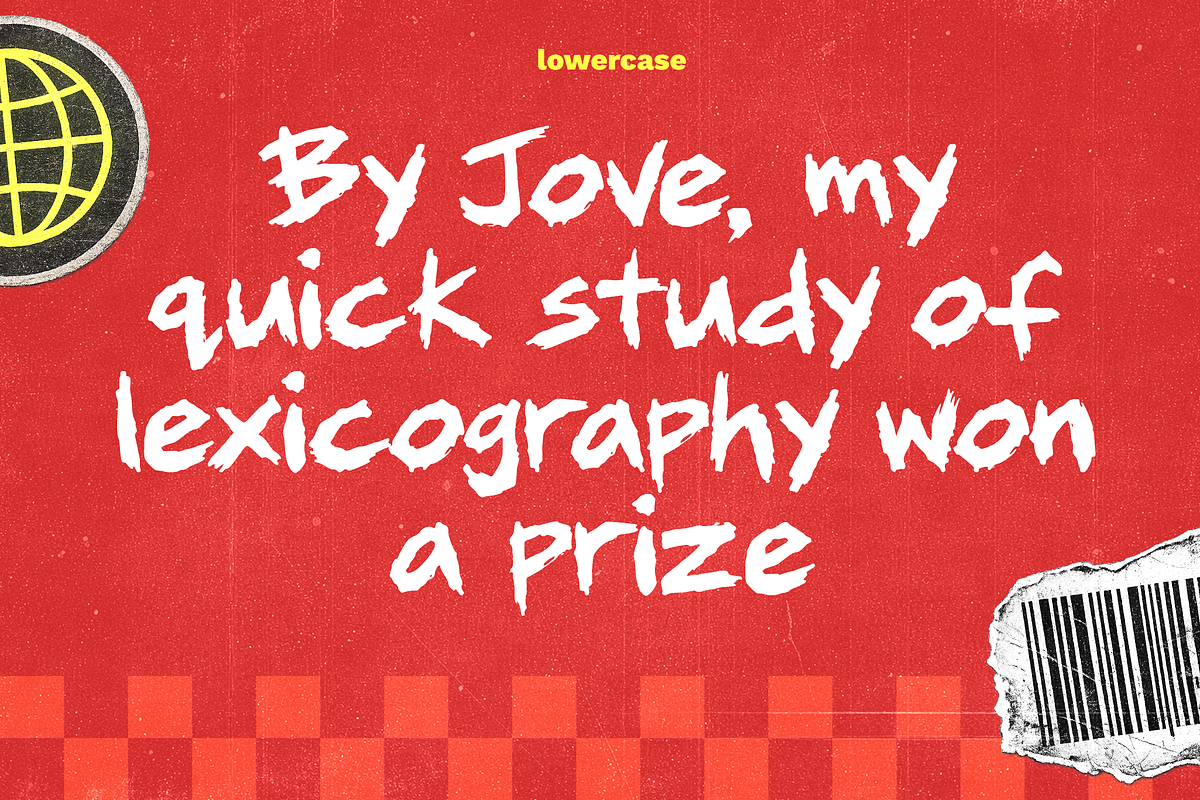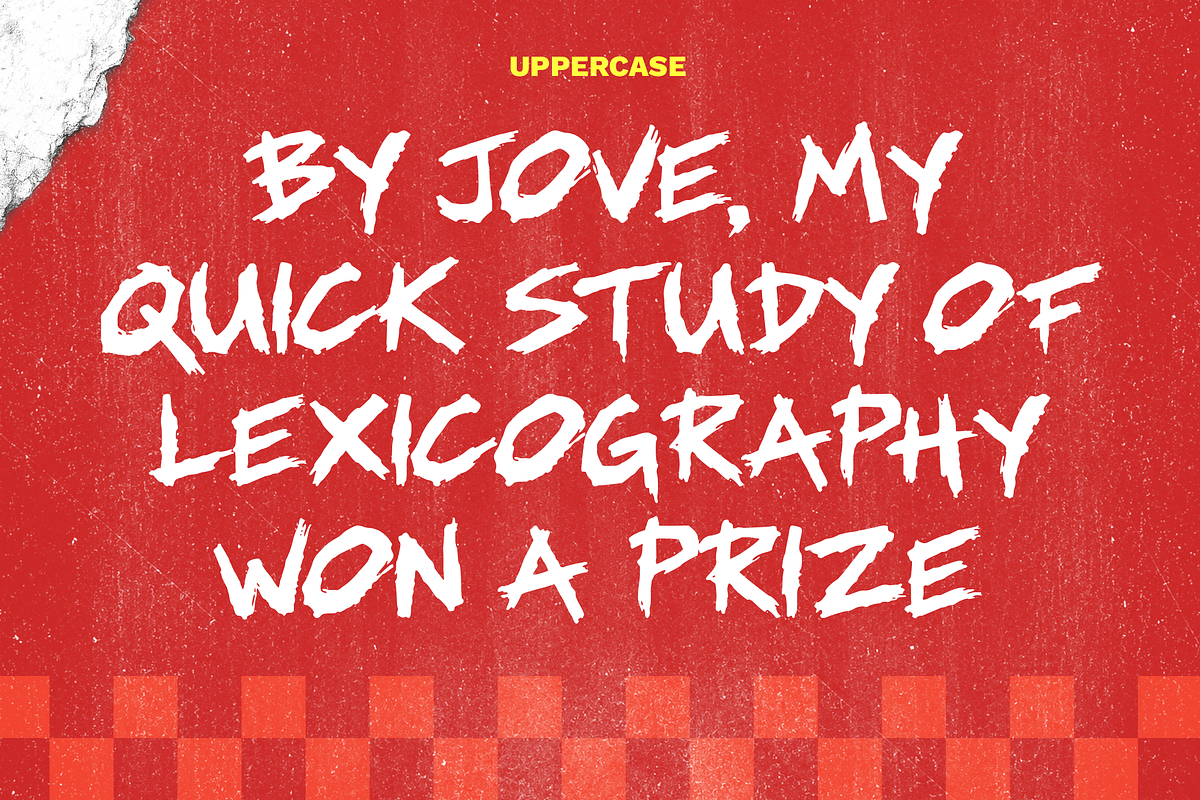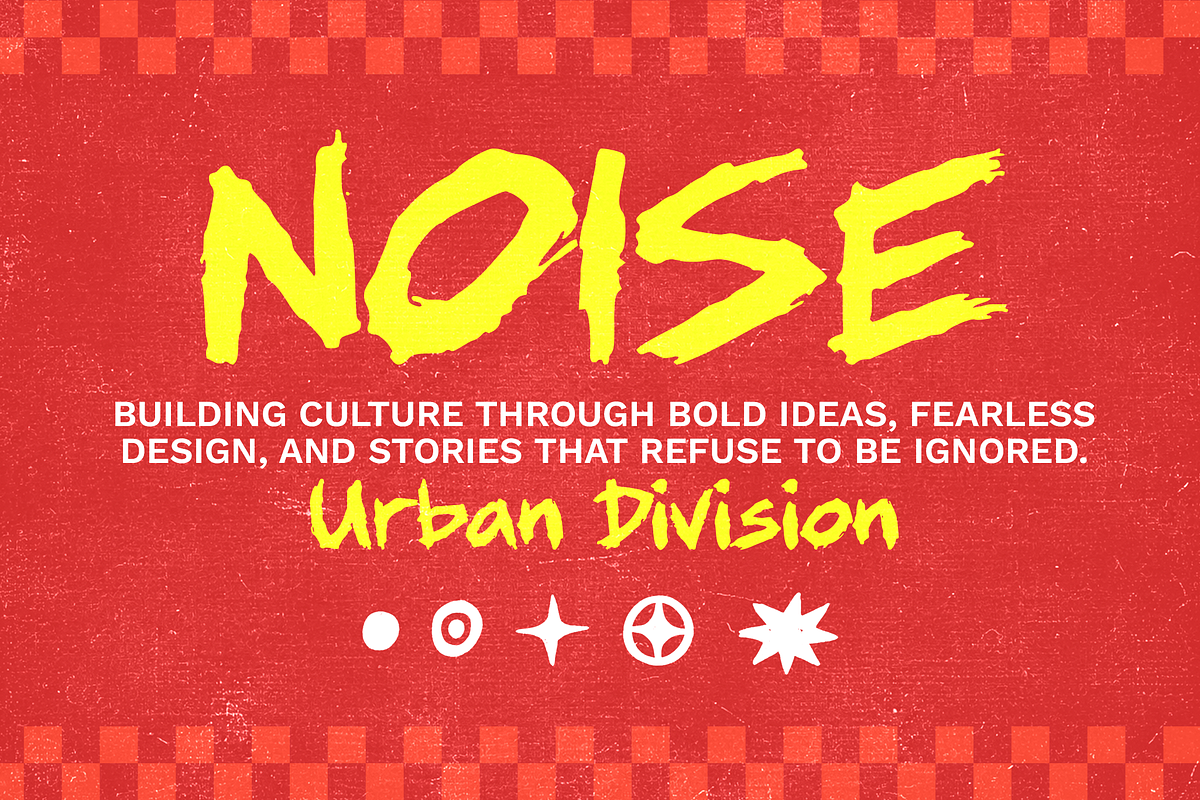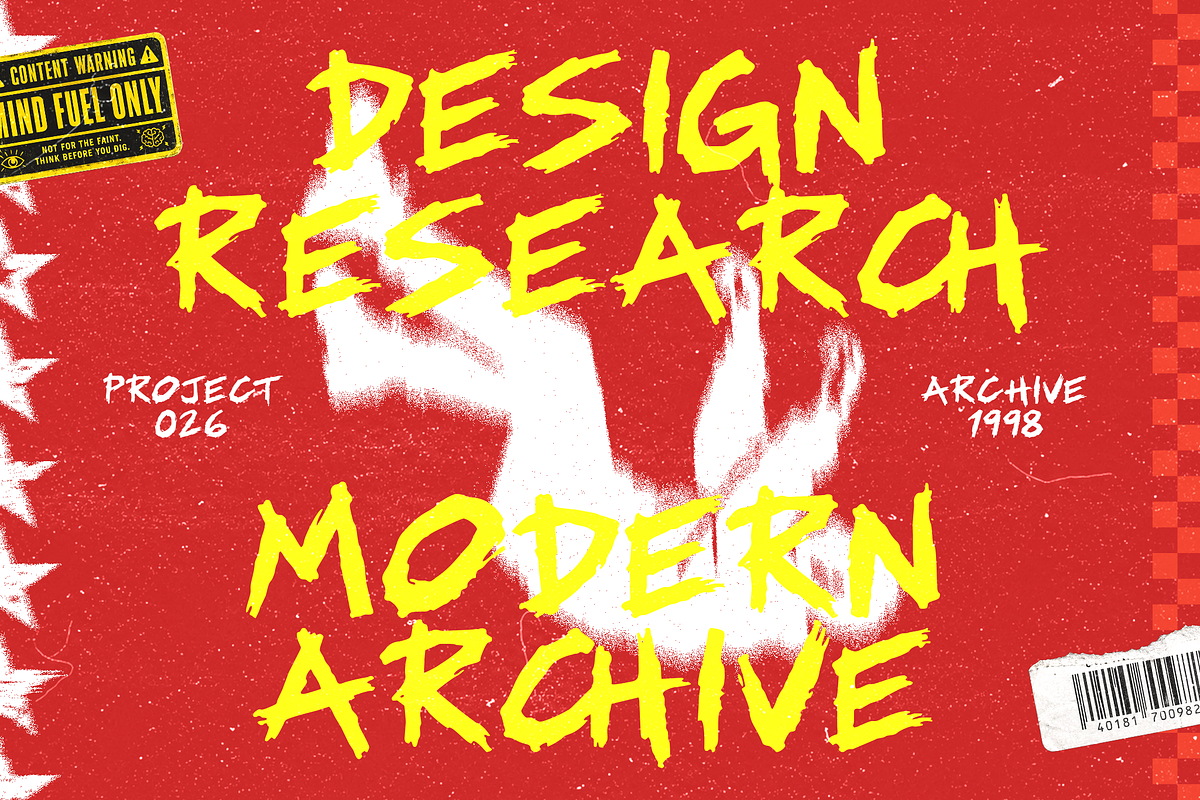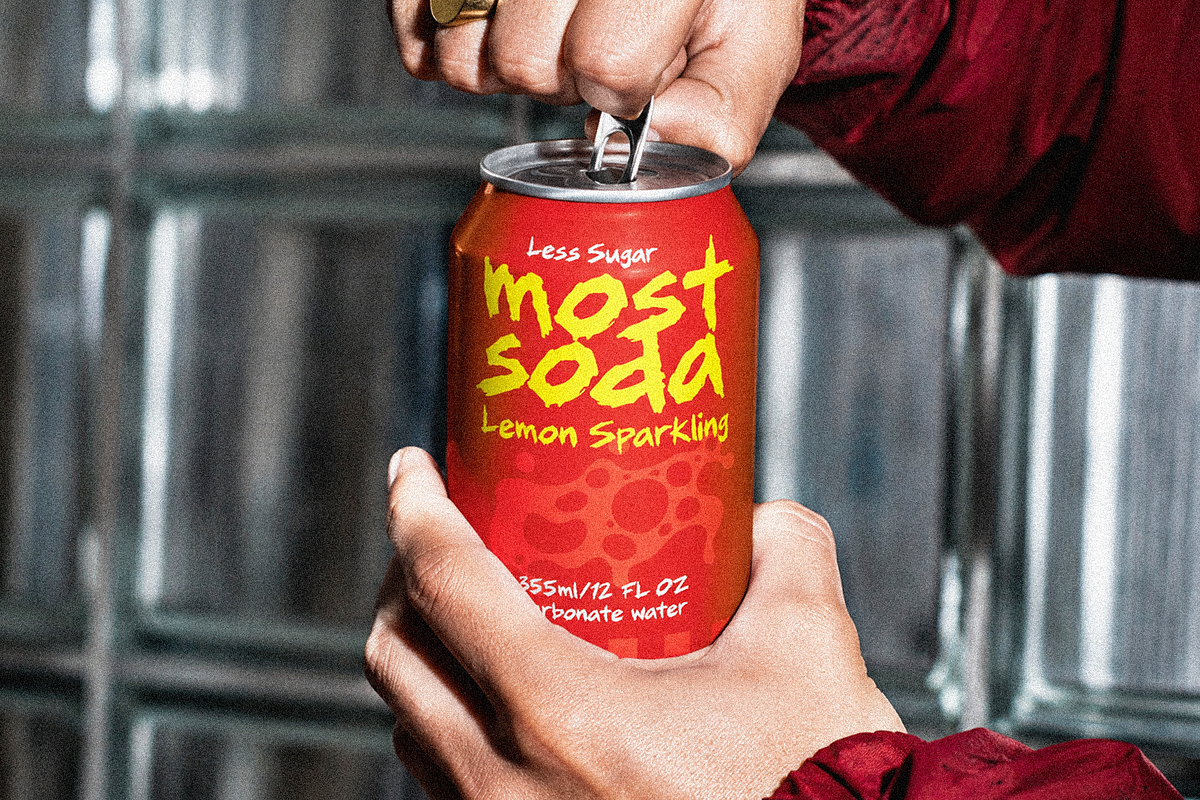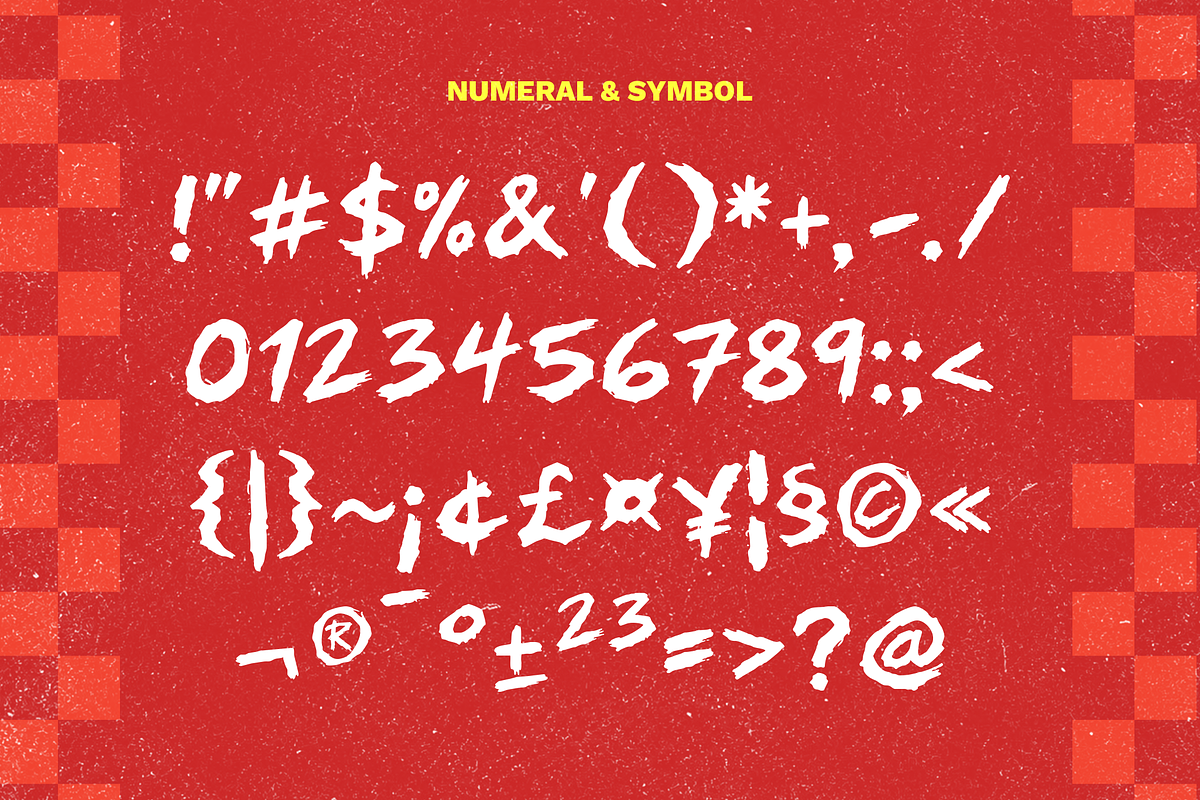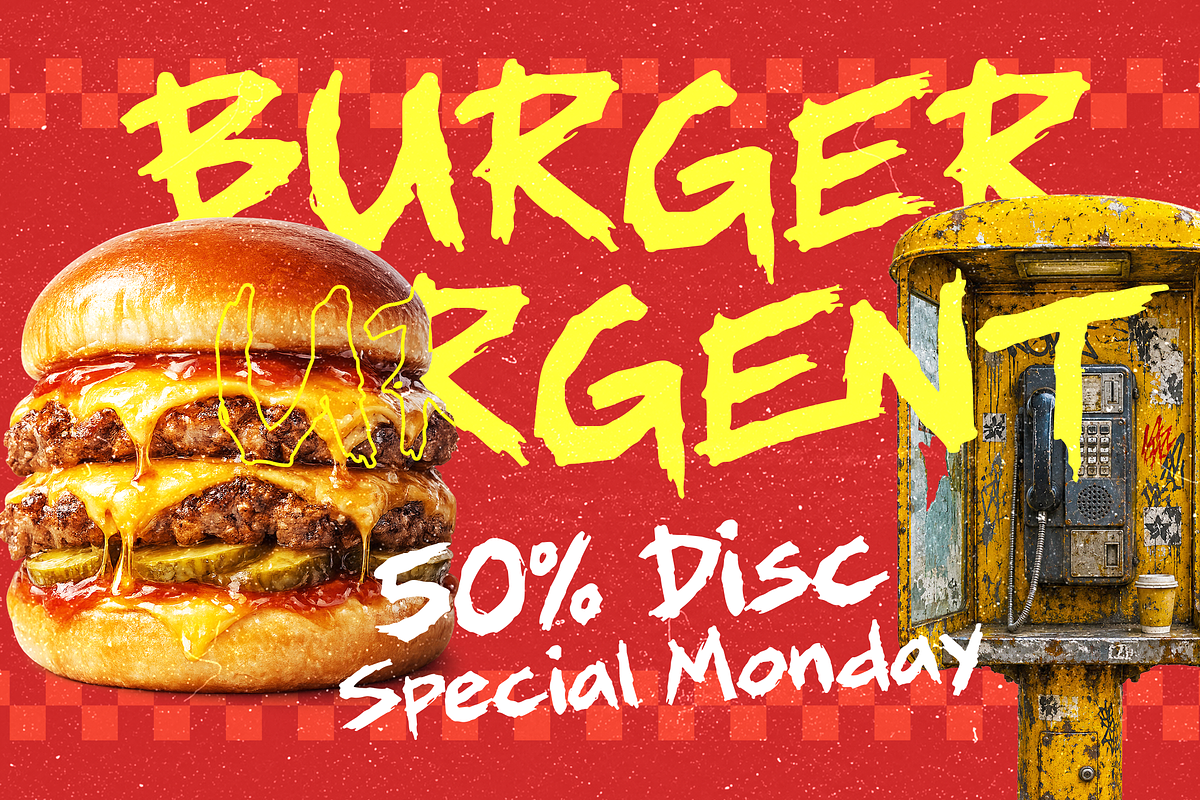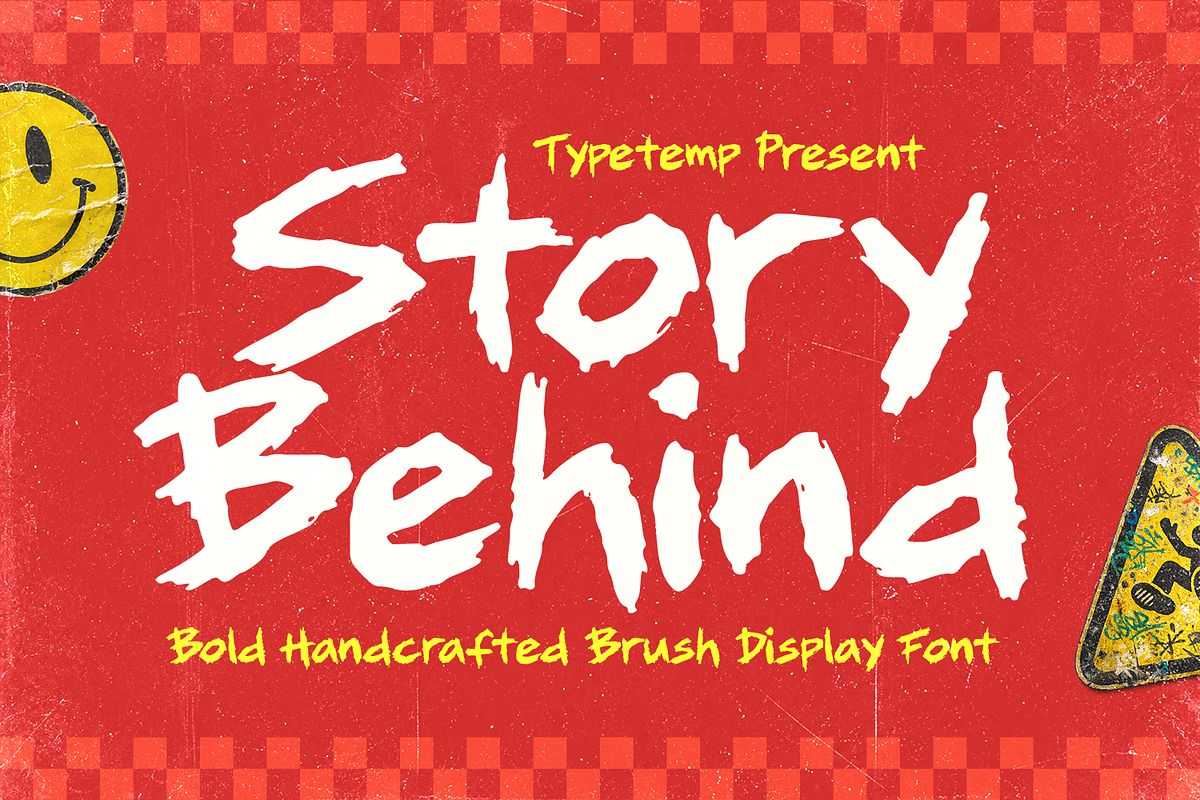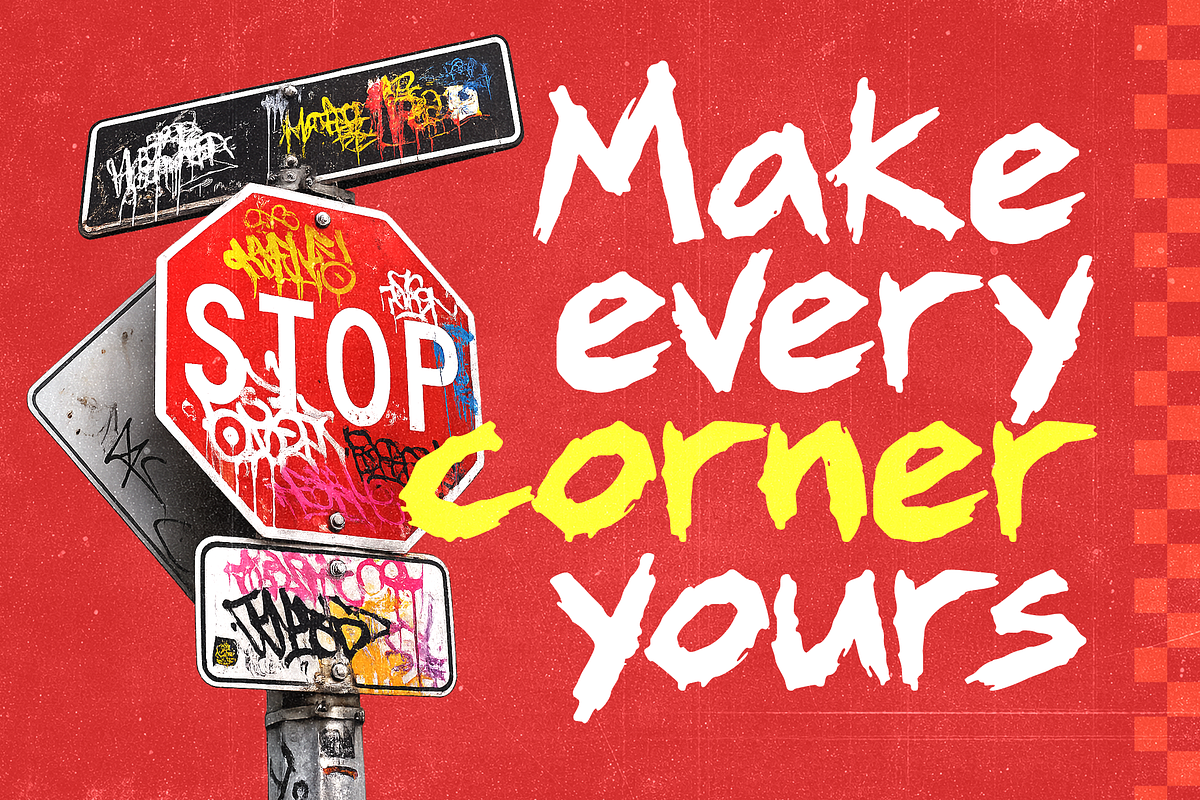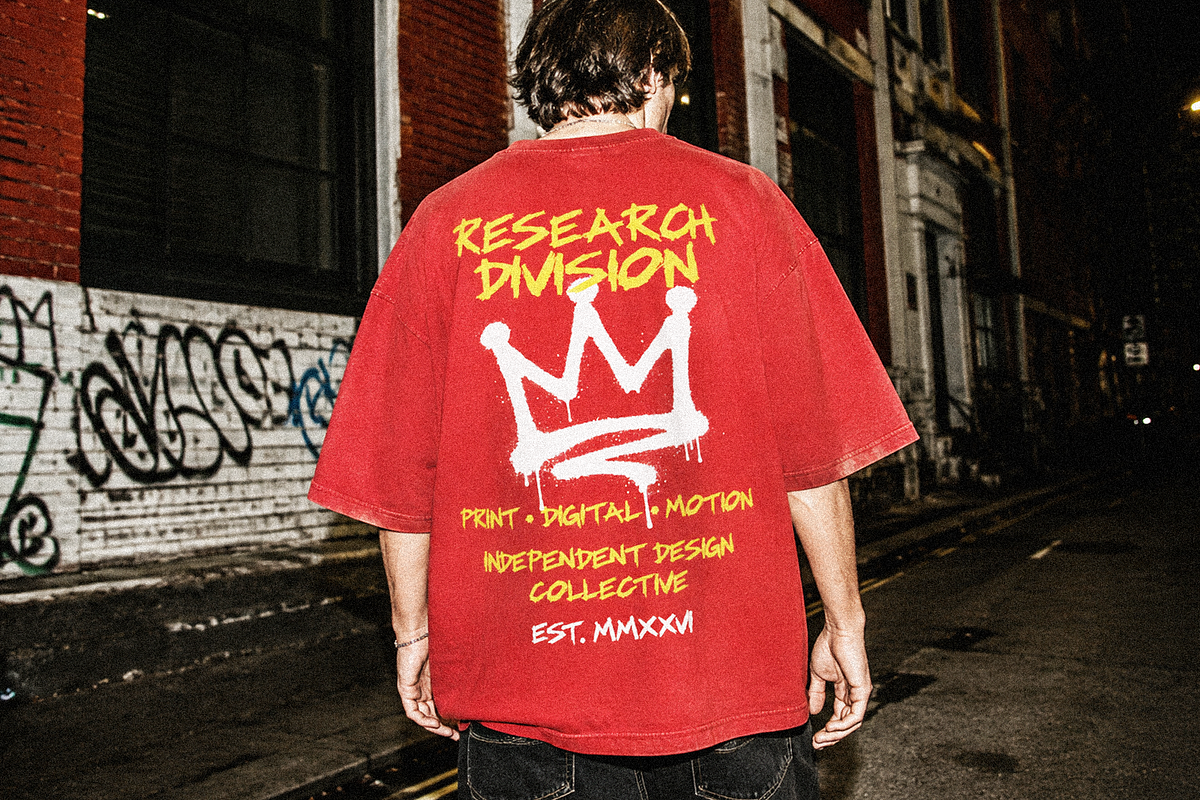
Story Behind Bold Handcrafted Brush
Story Behind is a high-energy, bold handcrafted brush display font presented by Typetemp. Featuring raw, textured brush strokes and aggressive hand-painted edges, this font captures a vibrant street-culture, Y2K, and grunge-pop aesthetic. Its bold visual presence and expressive letterforms make it a standout choice for dynamic headlines and high-impact design layouts.
Authentic handcrafted brush texture with energetic, dry-brush stroke details.
Bold display letterforms designed for high-impact headlines.
Edgy street culture and Y2K-inspired visual character.
Detailed Usage
Logos & Branding: An exceptional choice for urban brands, skate culture labels, creative studios, music acts, and action sports identities looking for a rebellious, hand-painted look.
Packaging Design: Perfectly upgrades craft soda cans, energy drinks, street-food labels, hot sauce bottles, and bold retail product packaging.
Editorial & Posters: A powerful option for music festival flyers, event posters, street-art catalogs, album cover artwork, and magazine title headlines.
Digital Content: Elevates YouTube thumbnail graphics, gaming channel banners, energetic social media campaign layouts, website hero sections, and video text overlays.